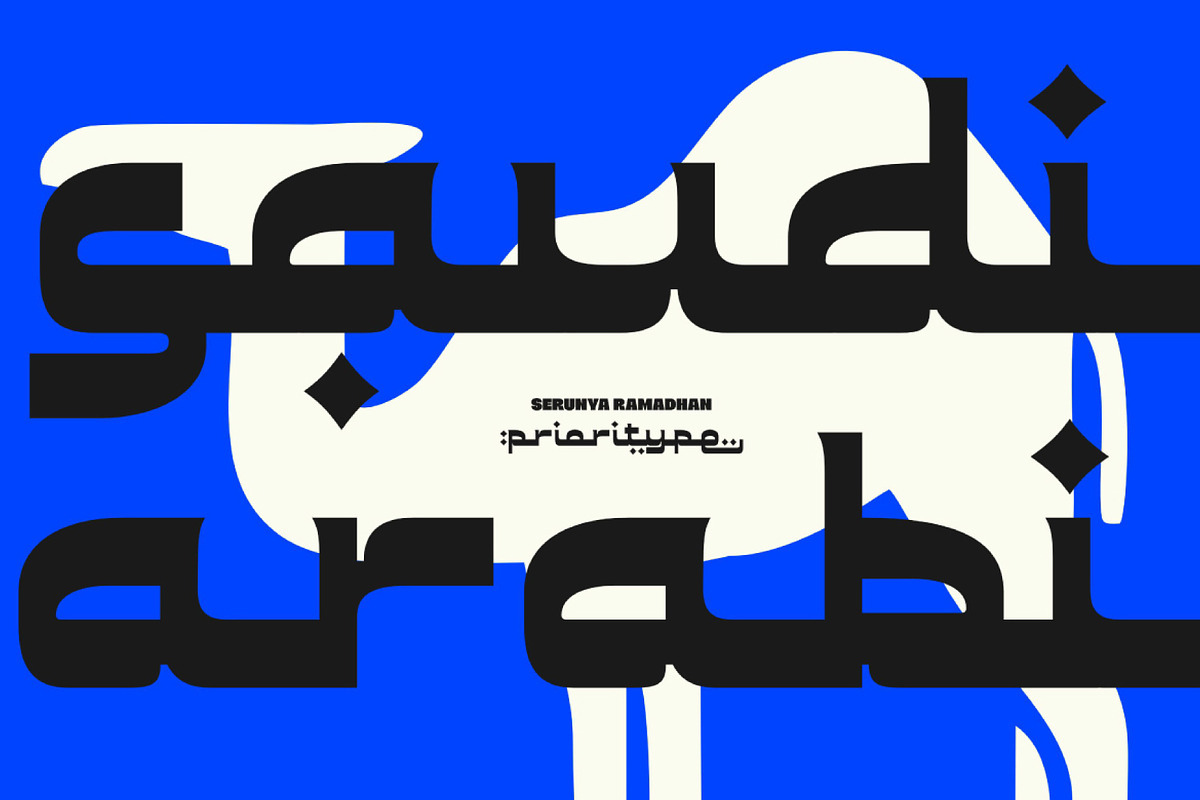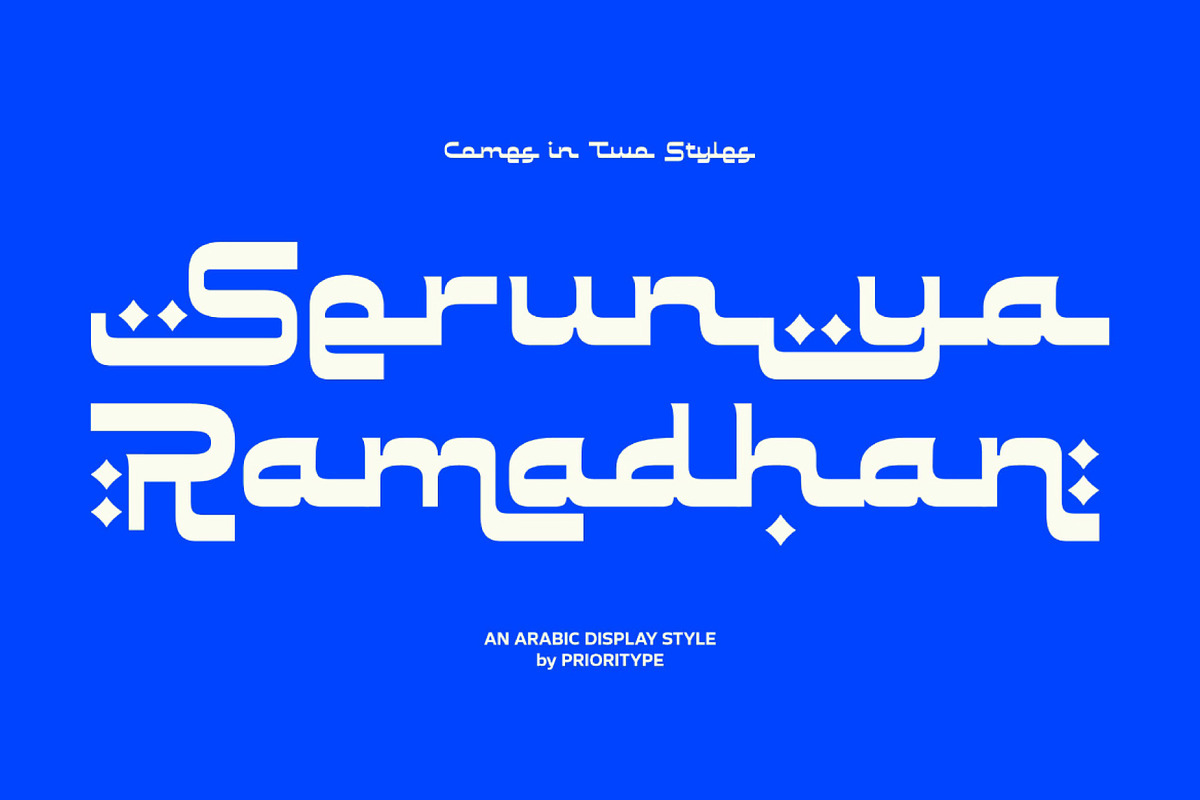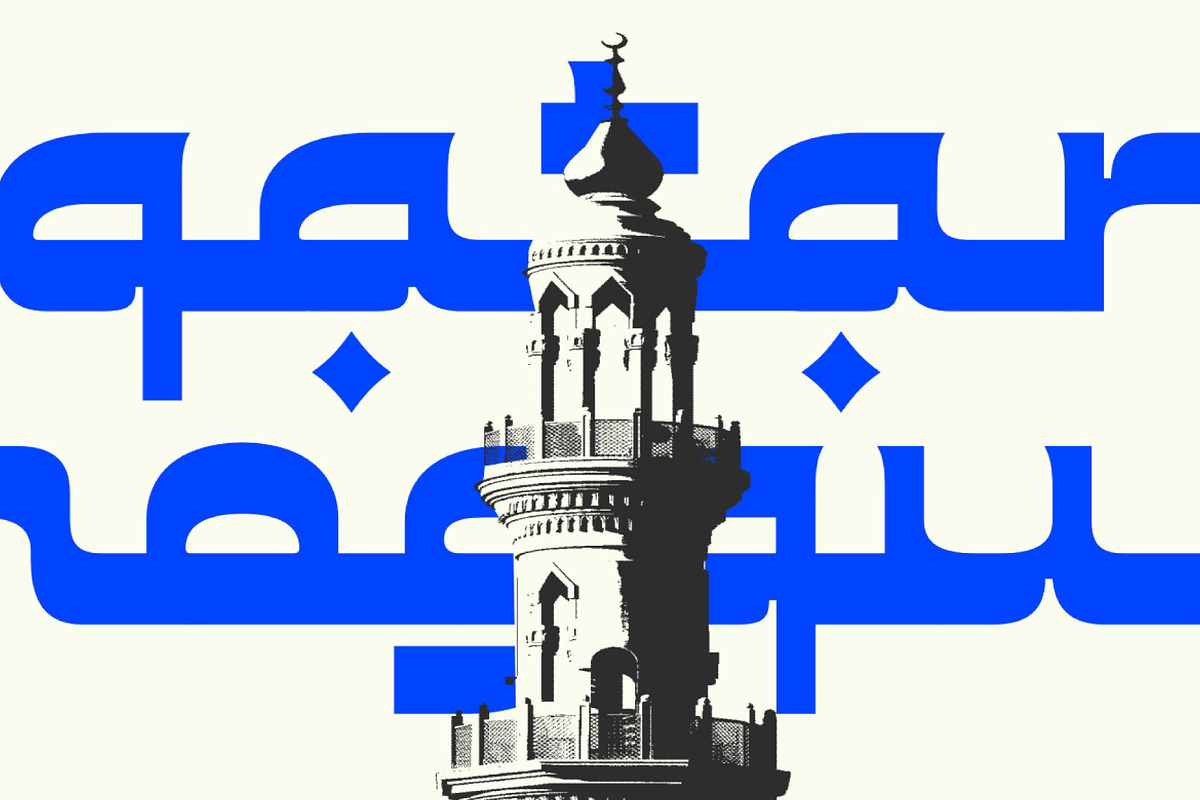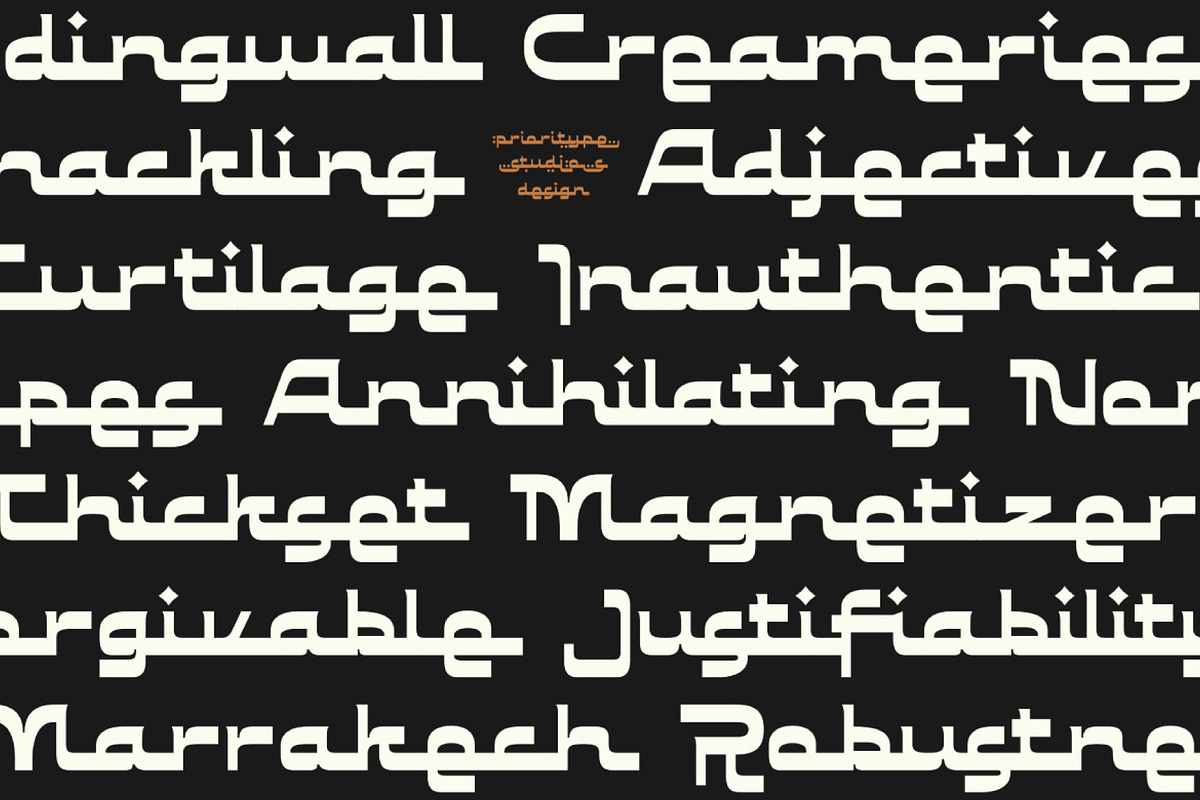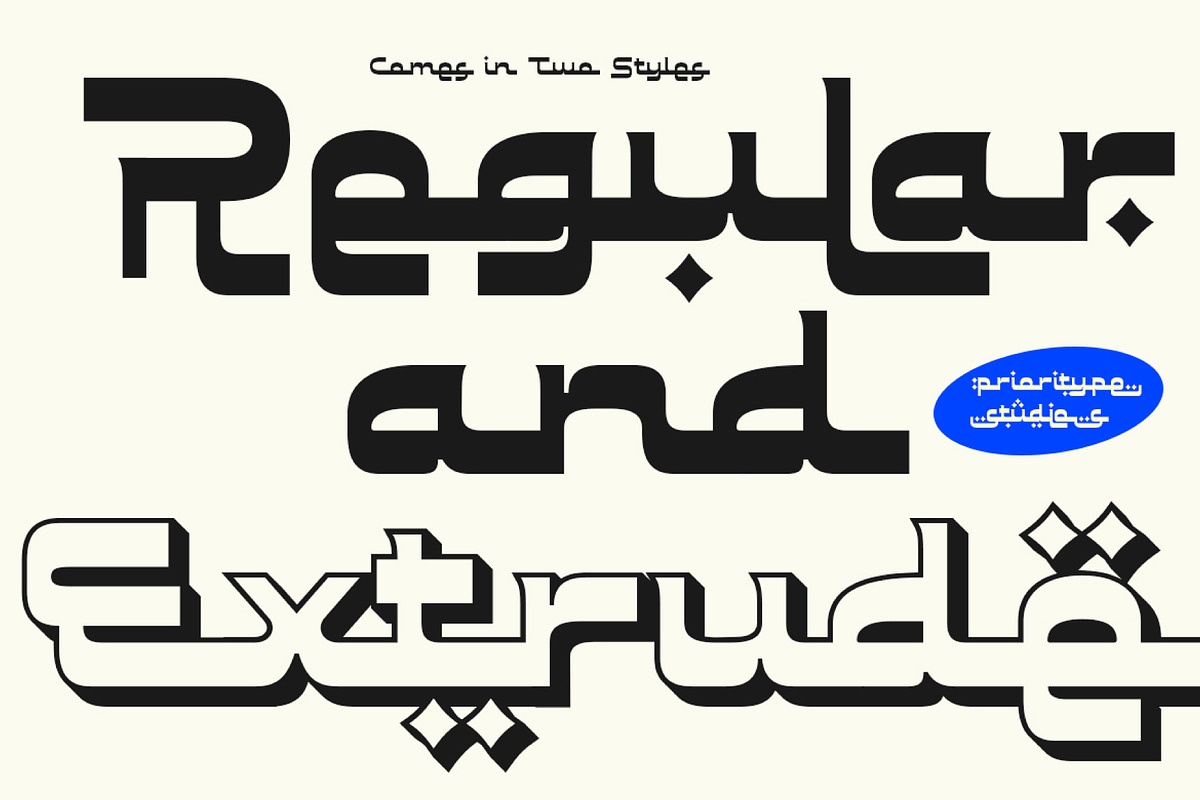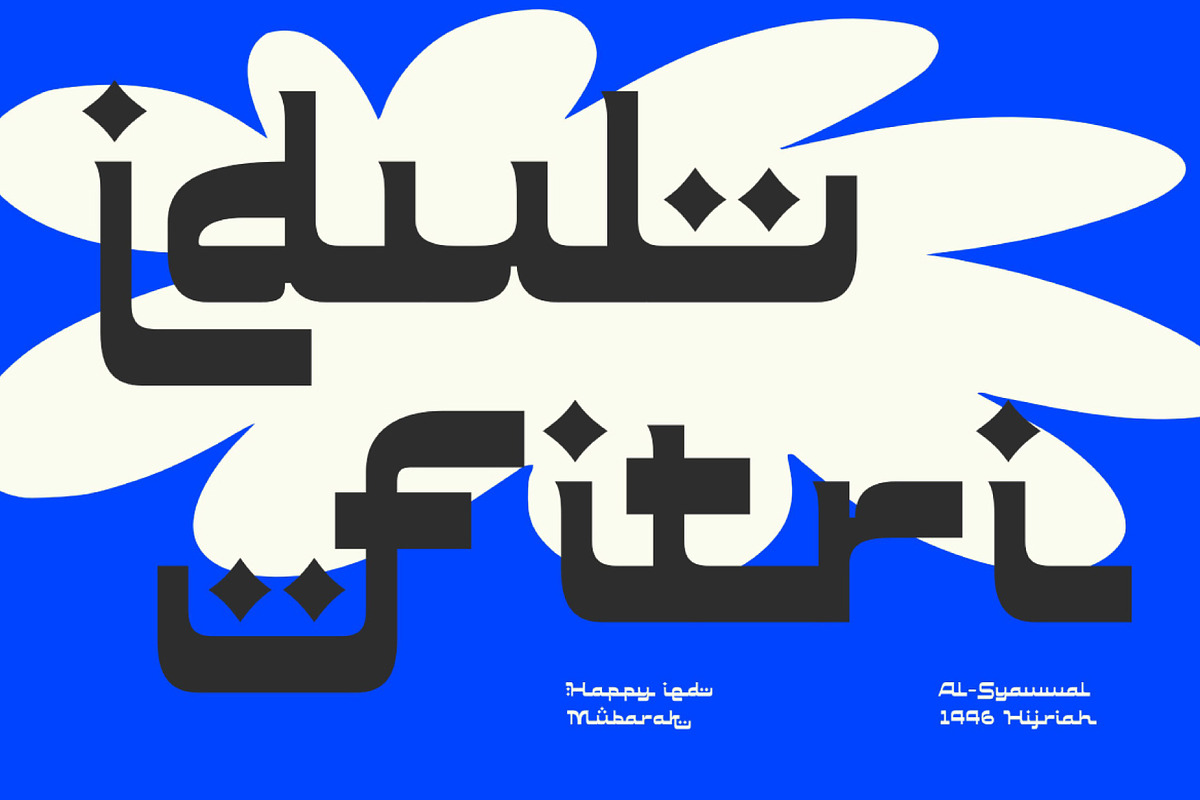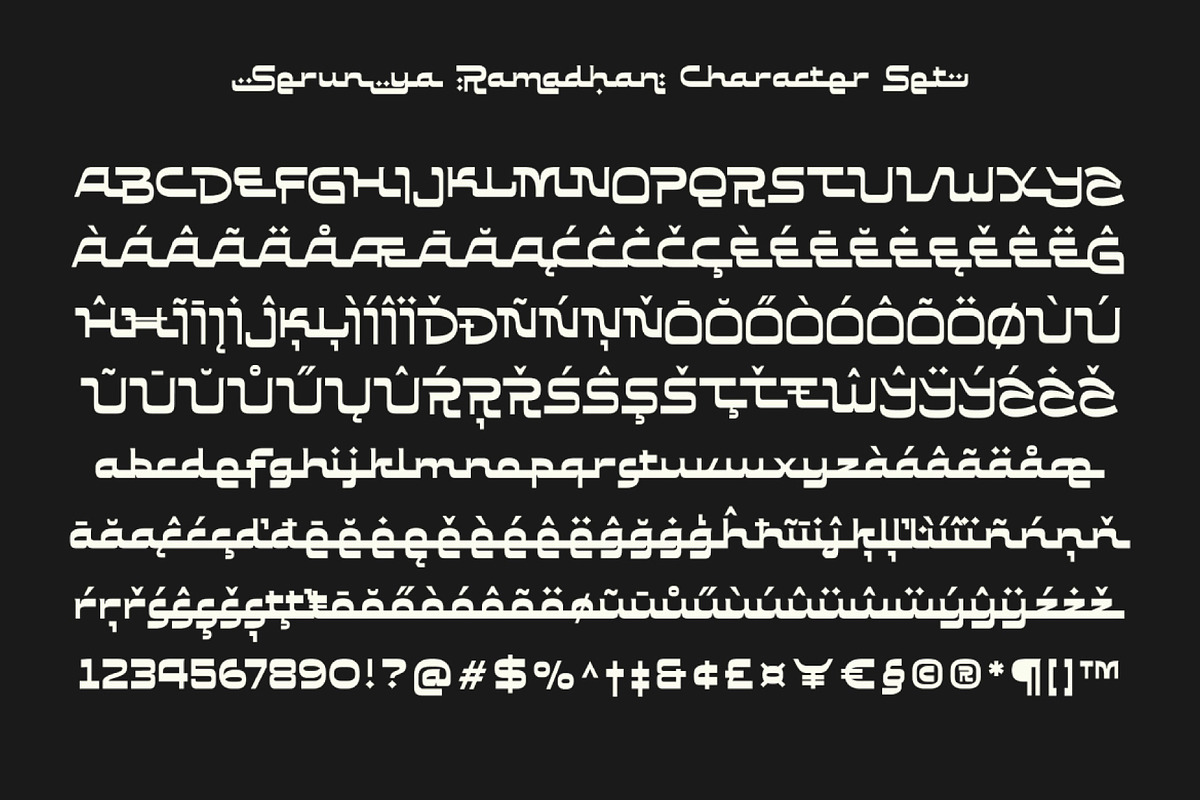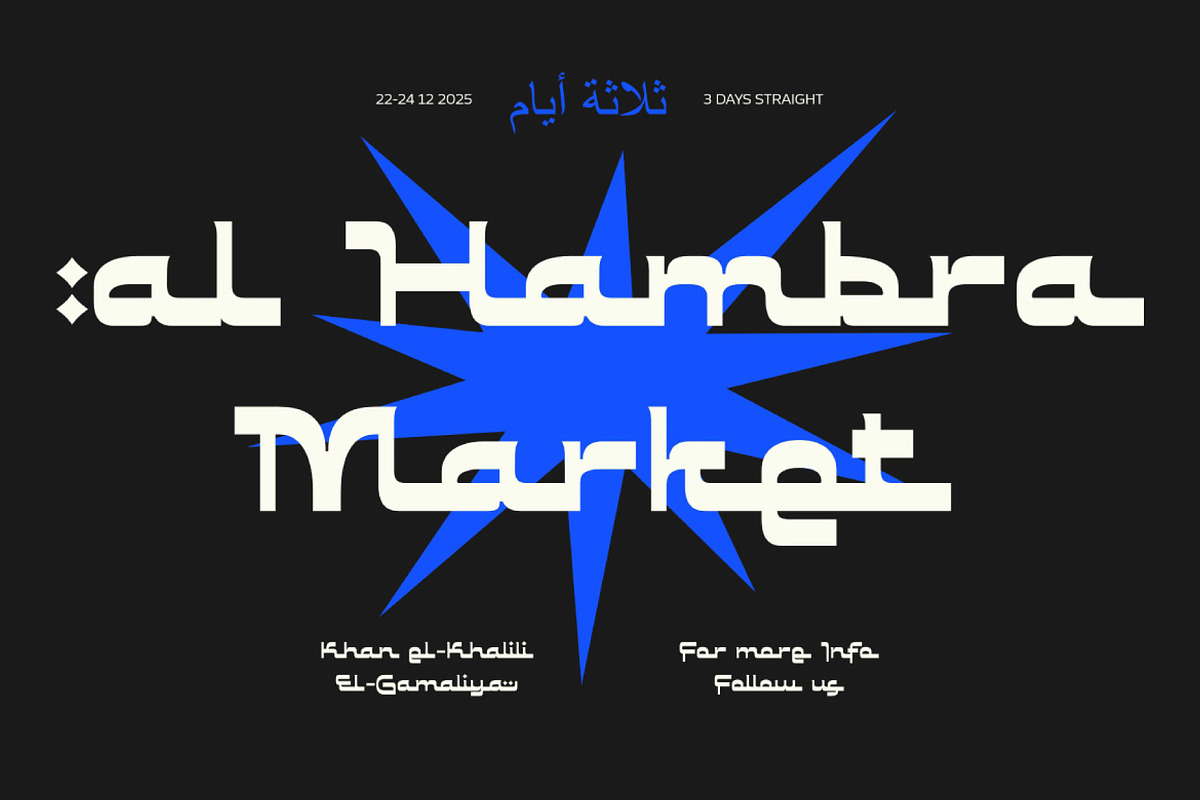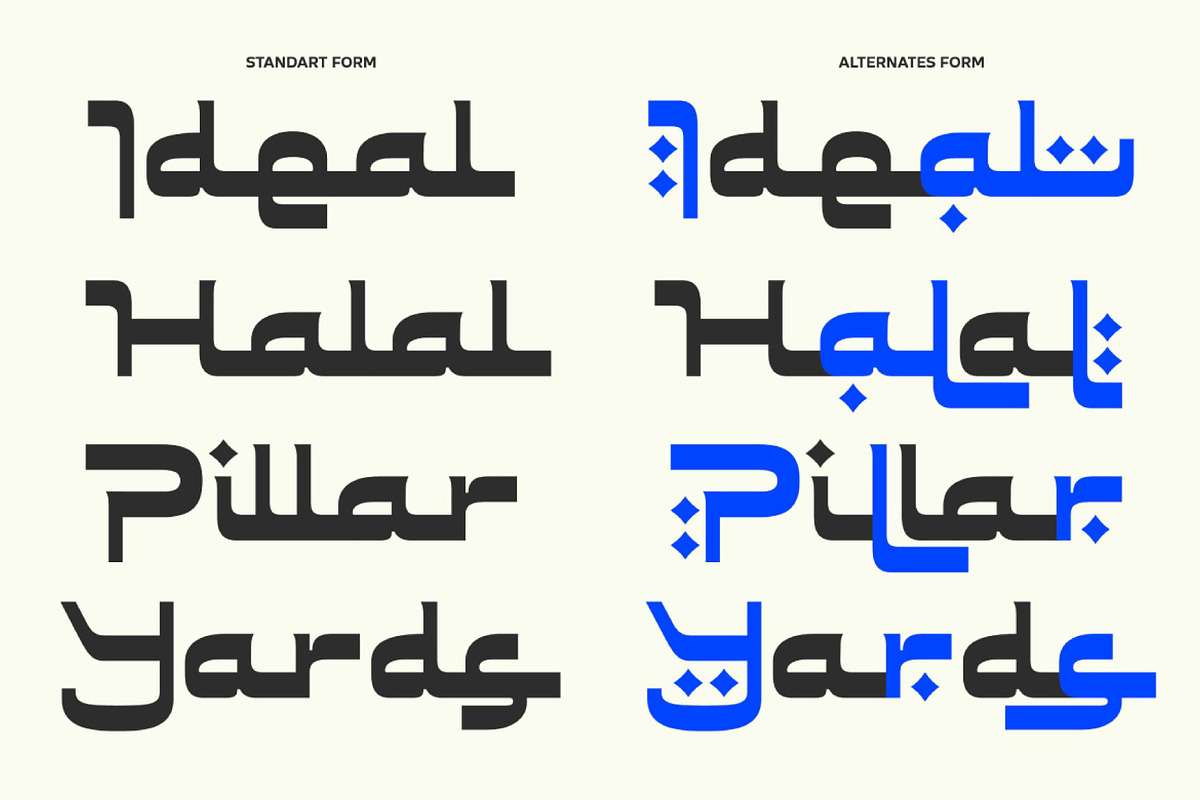
Serunya Ramadhan - Arabic Style Font
Serunya Ramadhan is a bold Latin display font with an Arabic-inspired style that feels strong, modern, and unique. Built with solid letterforms and a distinctive visual character, this font remains highly readable while still offering a decorative edge.
Packed with plenty of alternate characters, stylistic sets, and shape variations, Serunya Ramadhan provides extensive flexibility for creative exploration. Perfect for headlines, logos, posters, packaging, and any design project that aims to stand out with a bold and distinctive look.